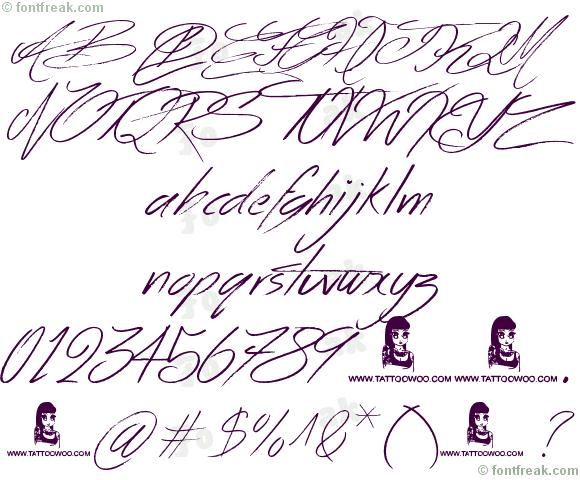
Across the Road
About Across the Road
The Across the Road font by Jonathan S. Harris is an elegant script typeface that embodies a sense of fluidity and sophistication. This font features a combination of fine strokes and graceful curves, making it visually appealing and versatile for various design applications. The stroke weight varies subtly, adding an organic feel to the letters, while the gentle contrast enhances readability without sacrificing aesthetic charm. The spacing between characters is well-considered, allowing for clarity while maintaining a cohesive flow, ideal for projects that require a touch of artistic flair.
Across the Road is perfect for wedding invitations, where its romantic script can set an enchanting tone for the big day. It also shines in branding materials for boutique shops, where the unique lettering can convey a sense of personality and style. Additionally, this font is great for creating visually striking movie posters, as it draws attention while remaining legible. Content creators will find it useful for social media graphics, providing an eye-catching element that can elevate posts. Lastly, restaurant menus can benefit from this font’s unique character, enticing diners with its charming presentation.
Targeted at graphic designers, small business owners, and content creators, Across the Road font brings a unique touch to any project. Its artistic flair appeals to those looking to make a statement while ensuring that their text remains readable. The Across the Road font free download option makes it accessible for anyone seeking to enhance their designs without breaking the bank. Overall, this font stands out for its balance of elegance and functionality, making it a valuable addition to any designer's toolkit.